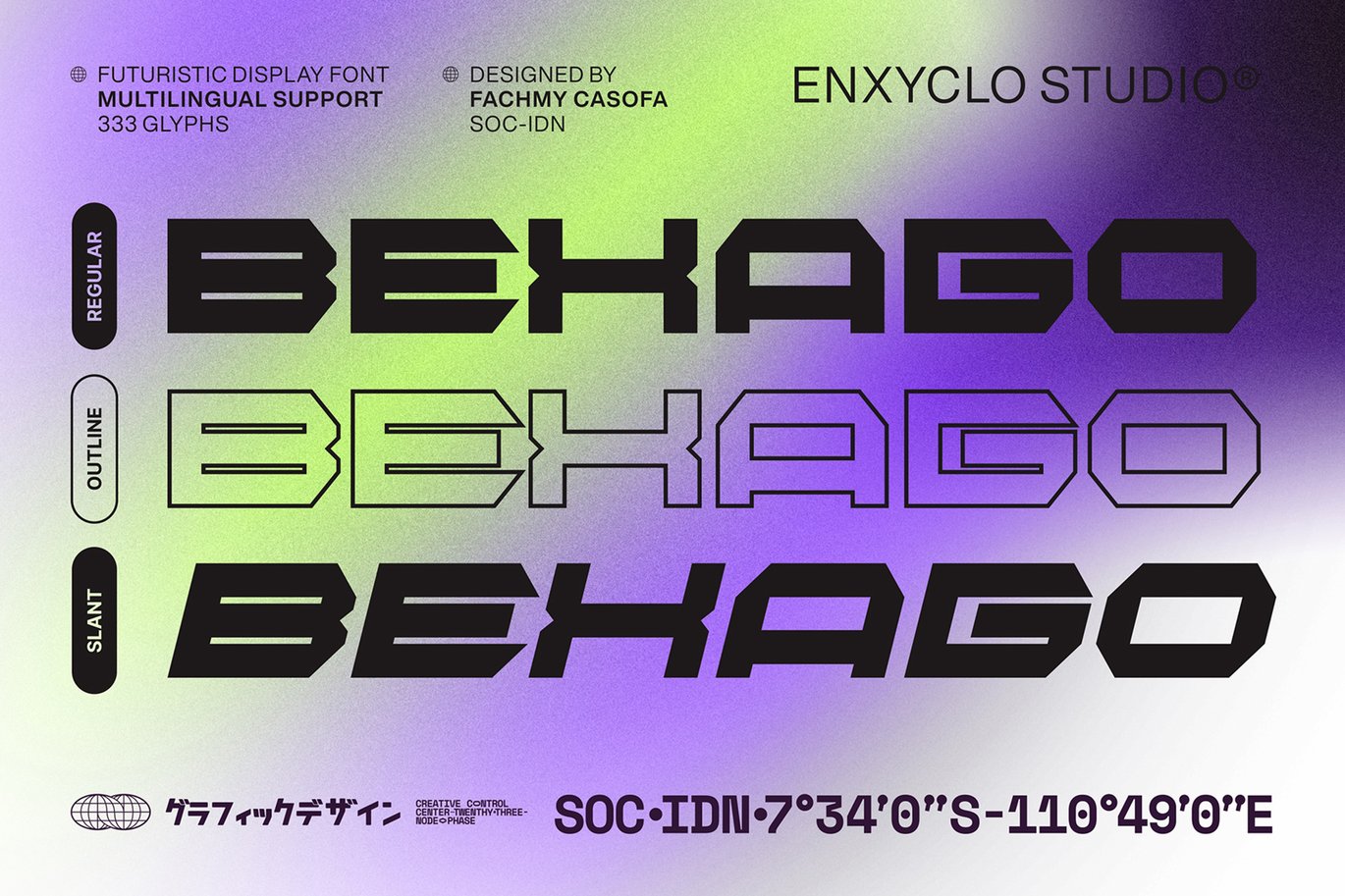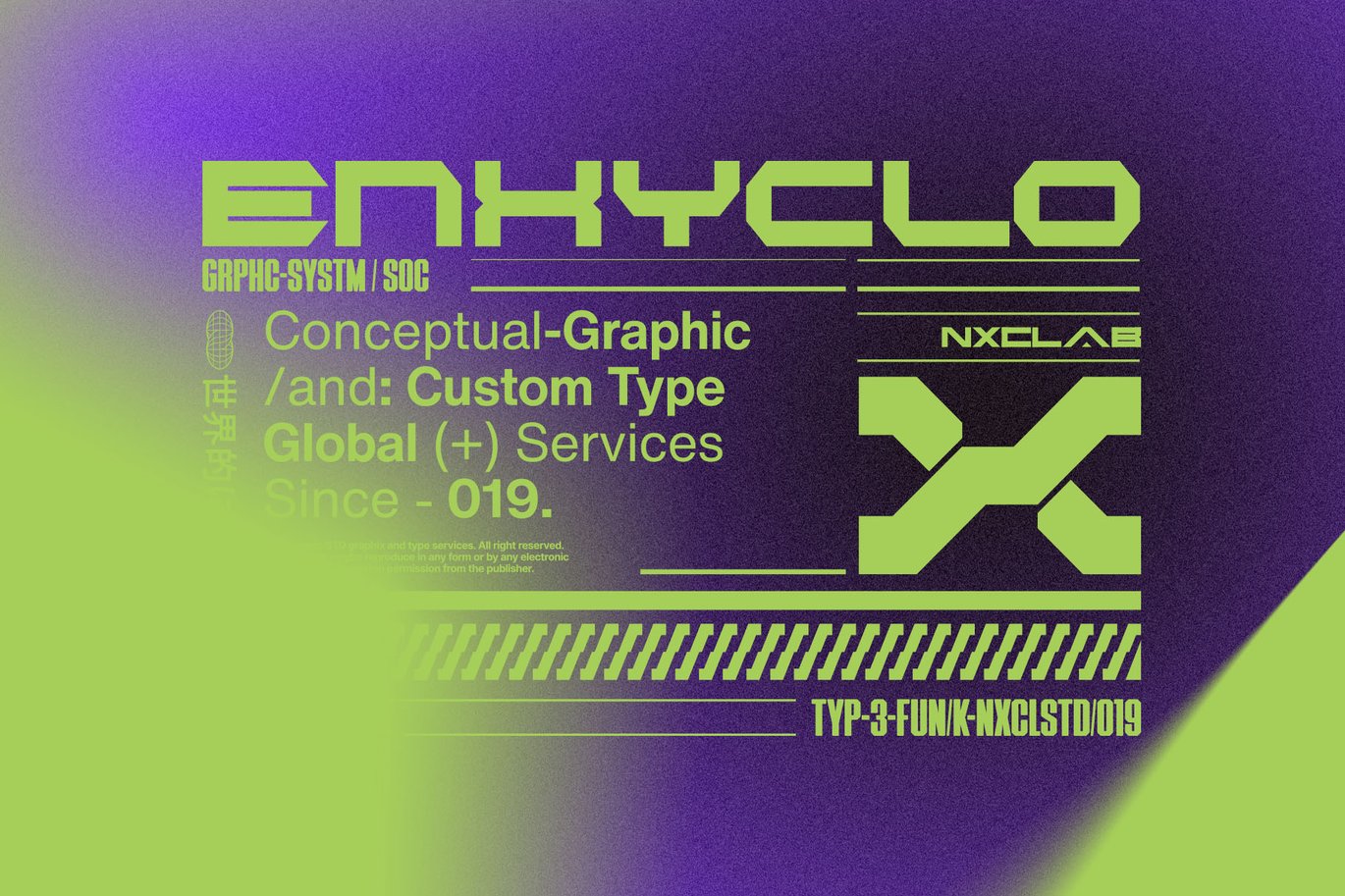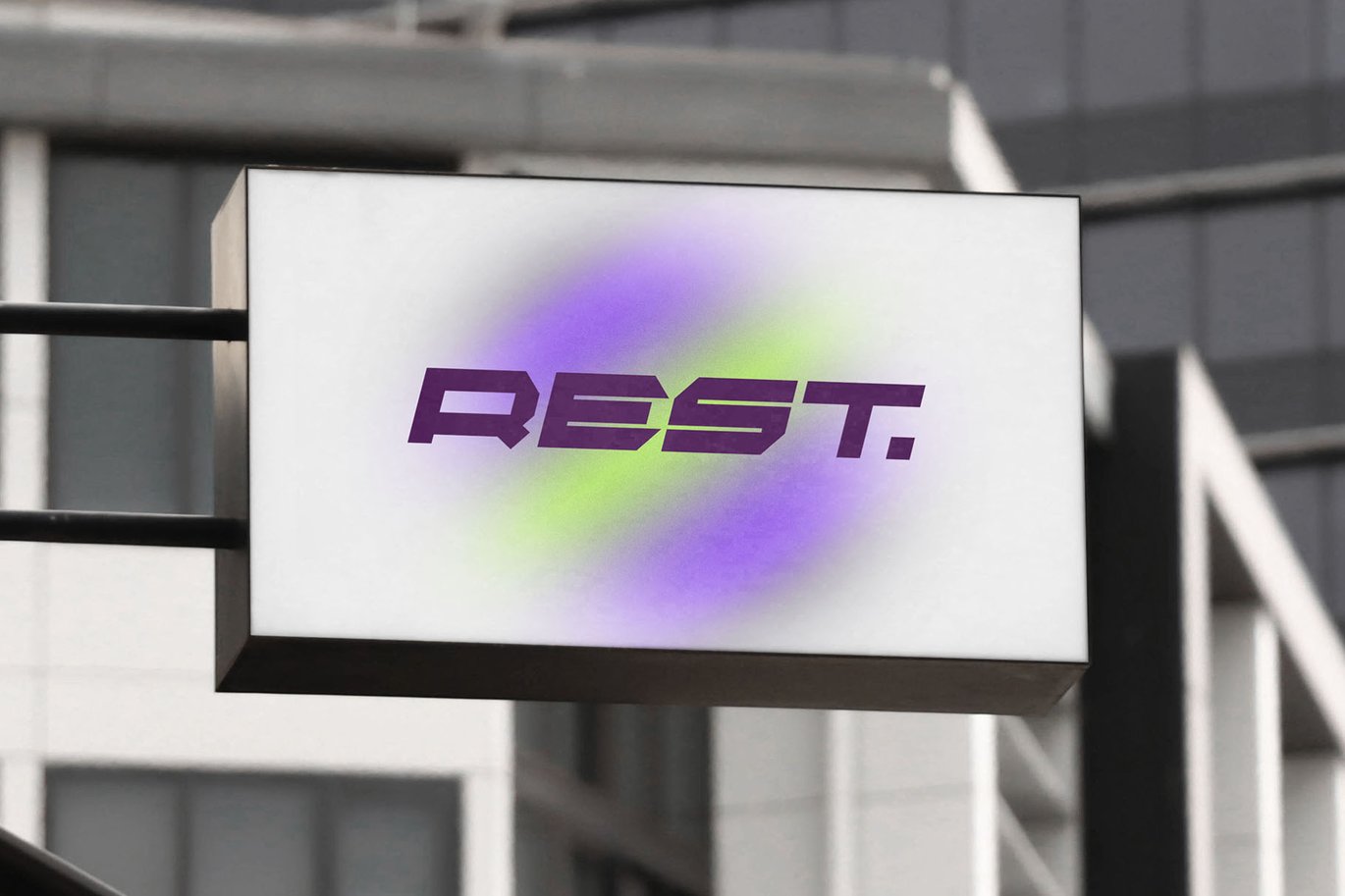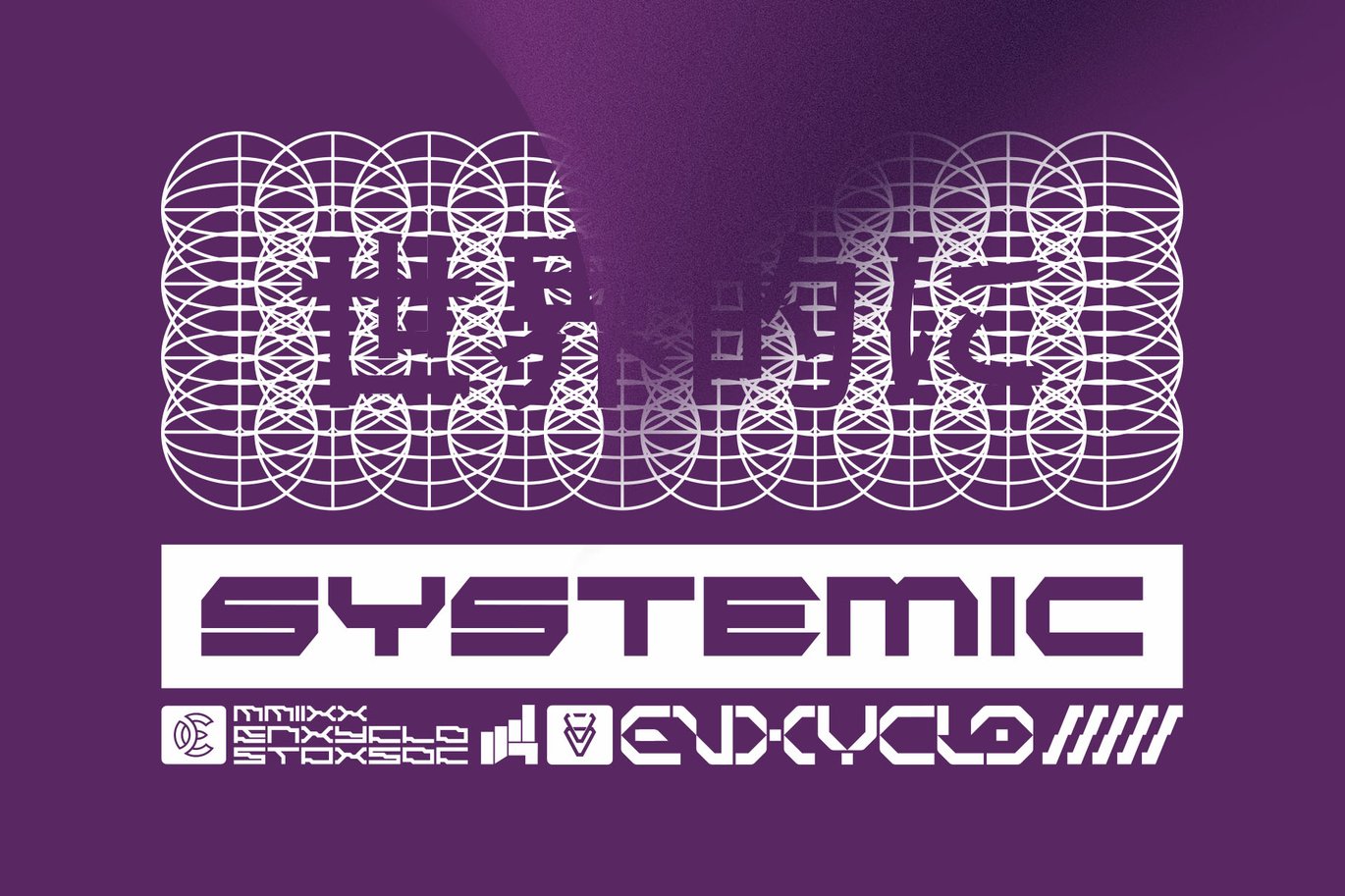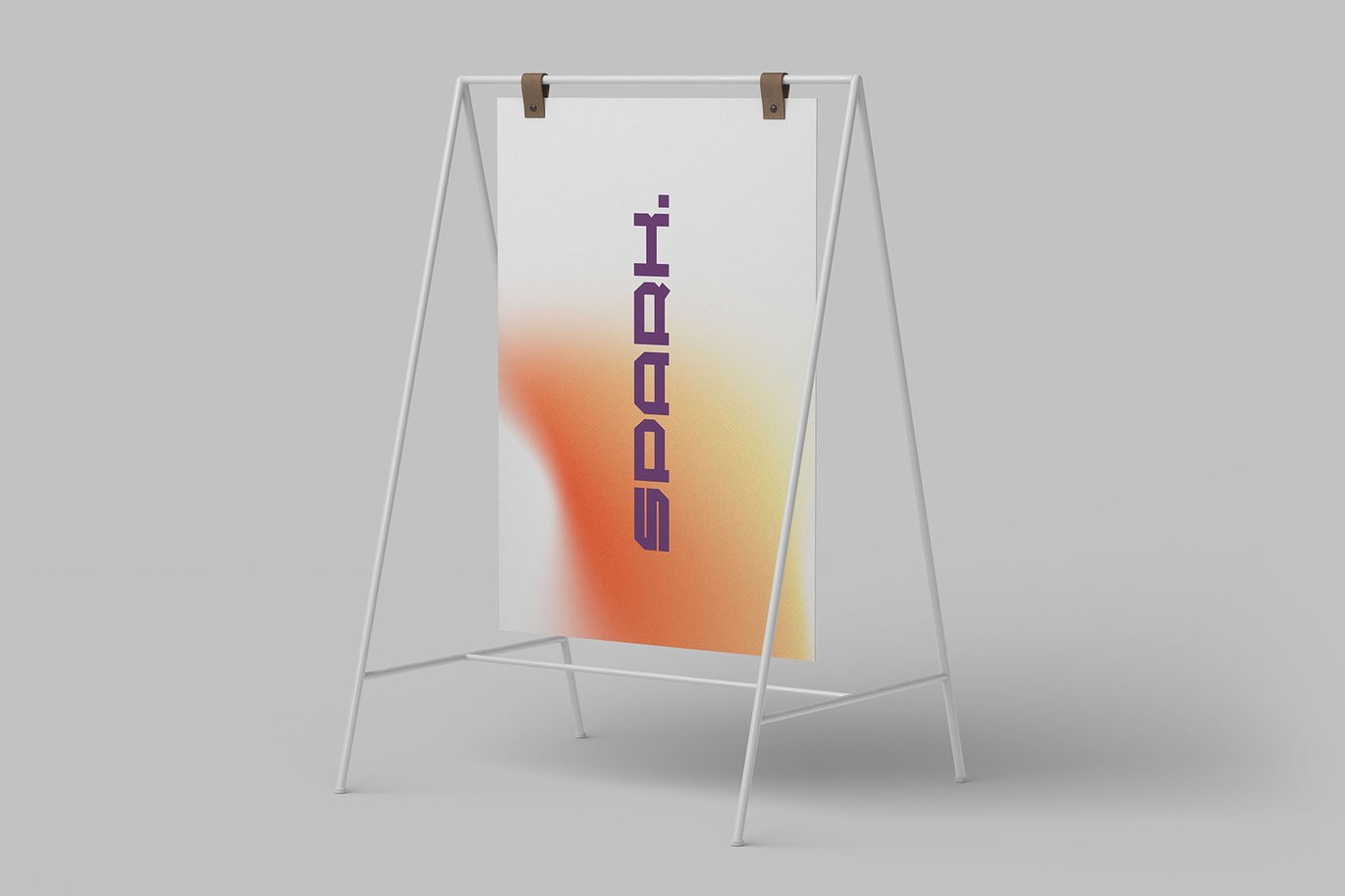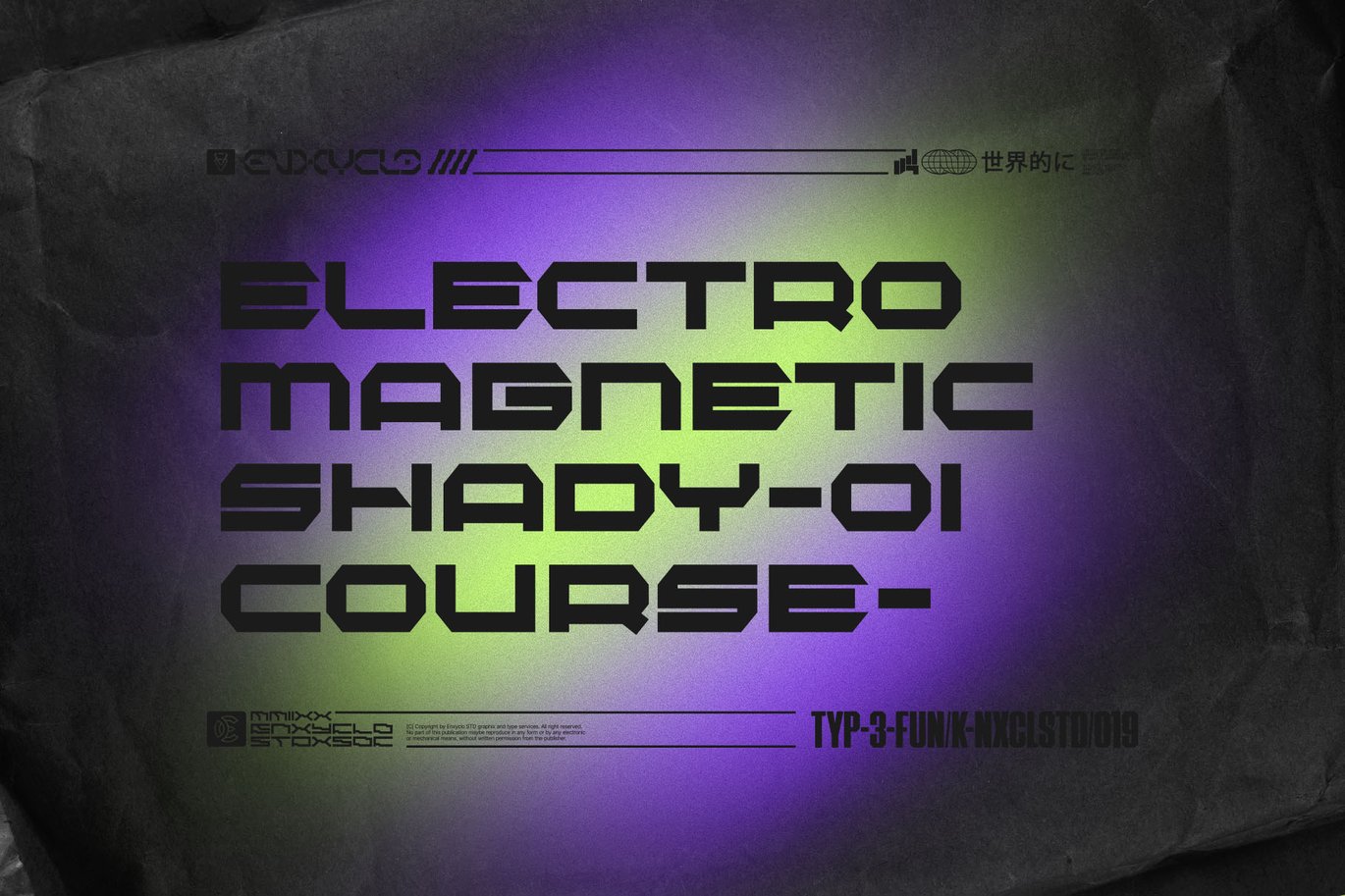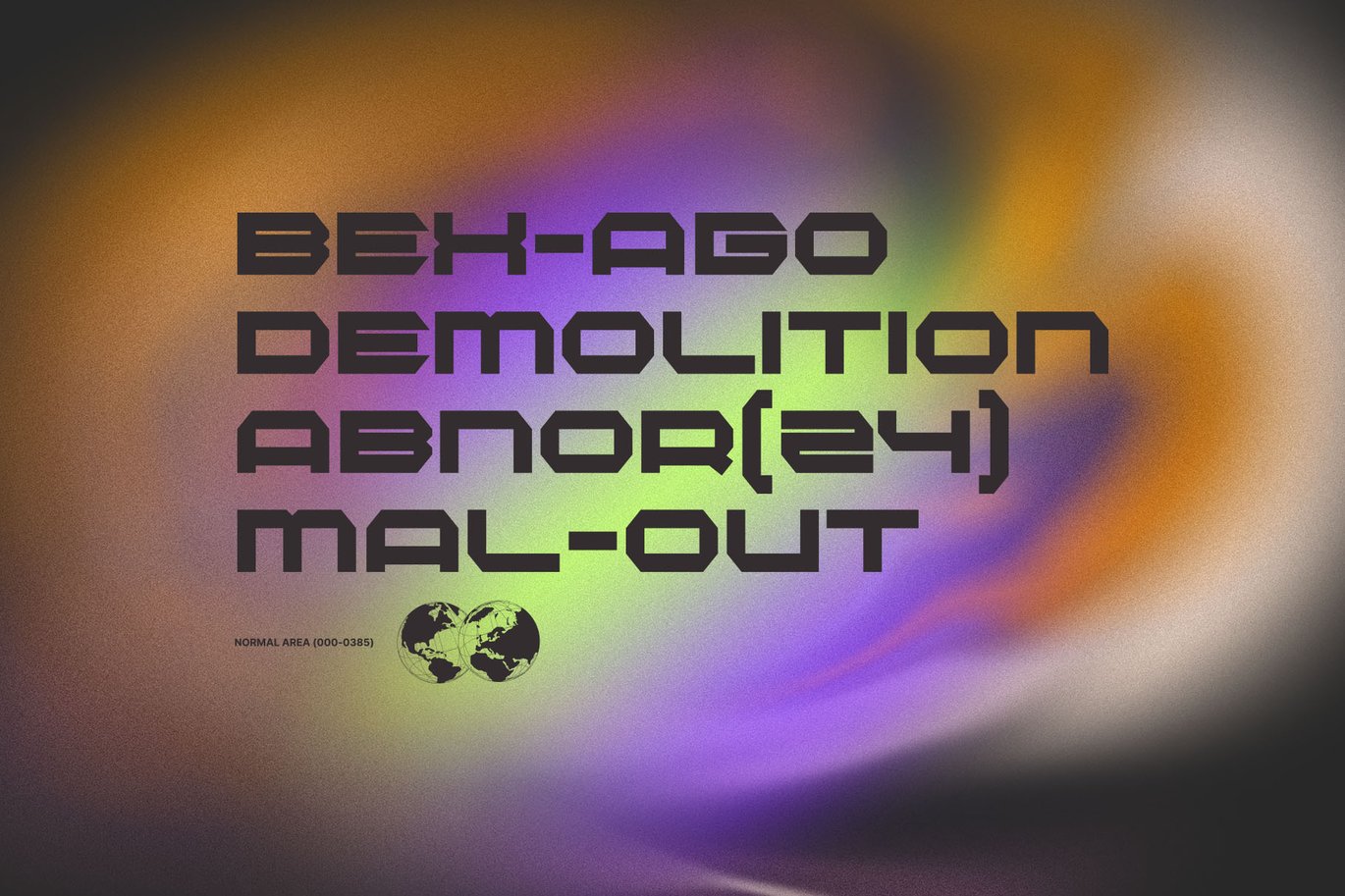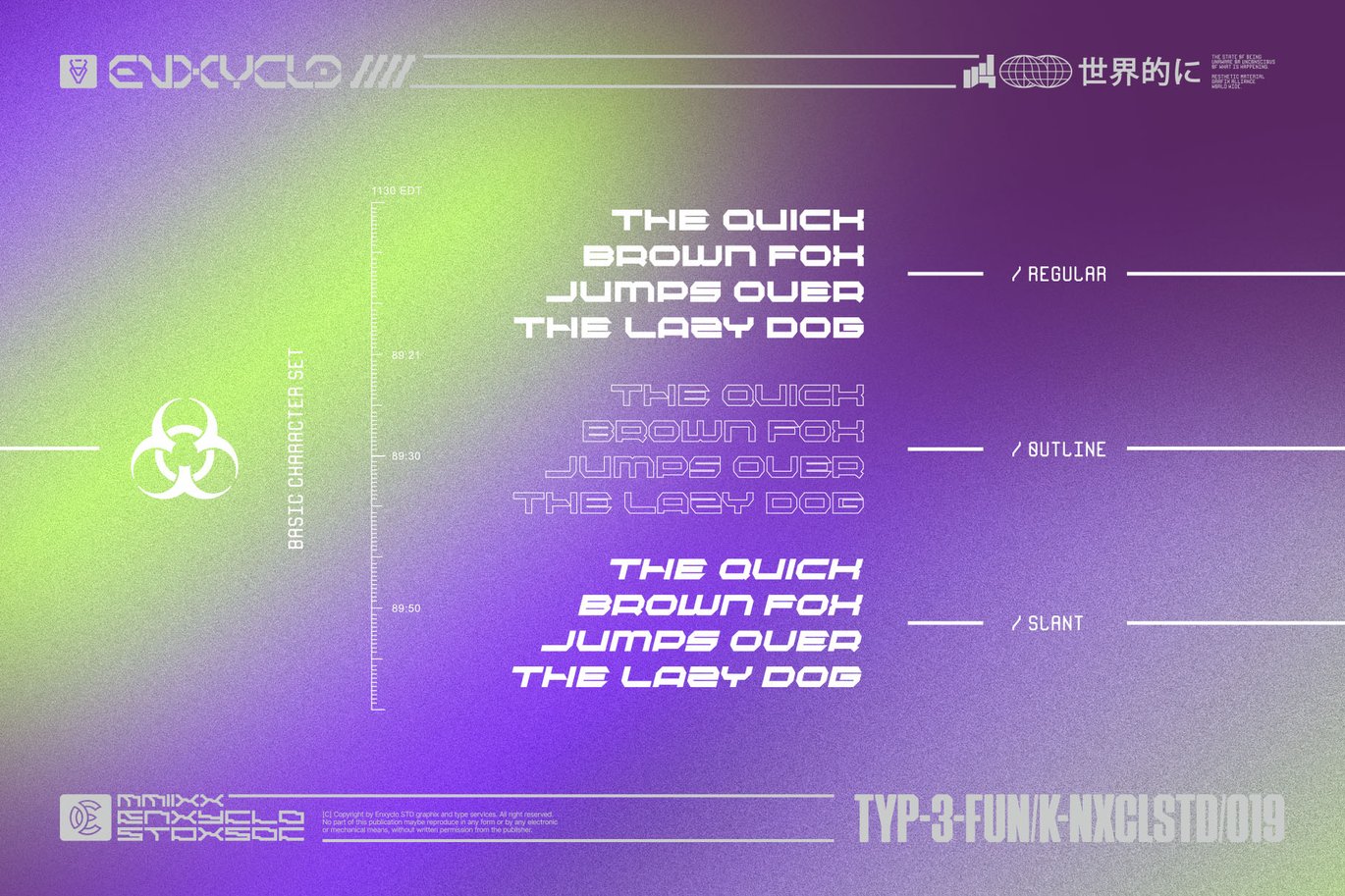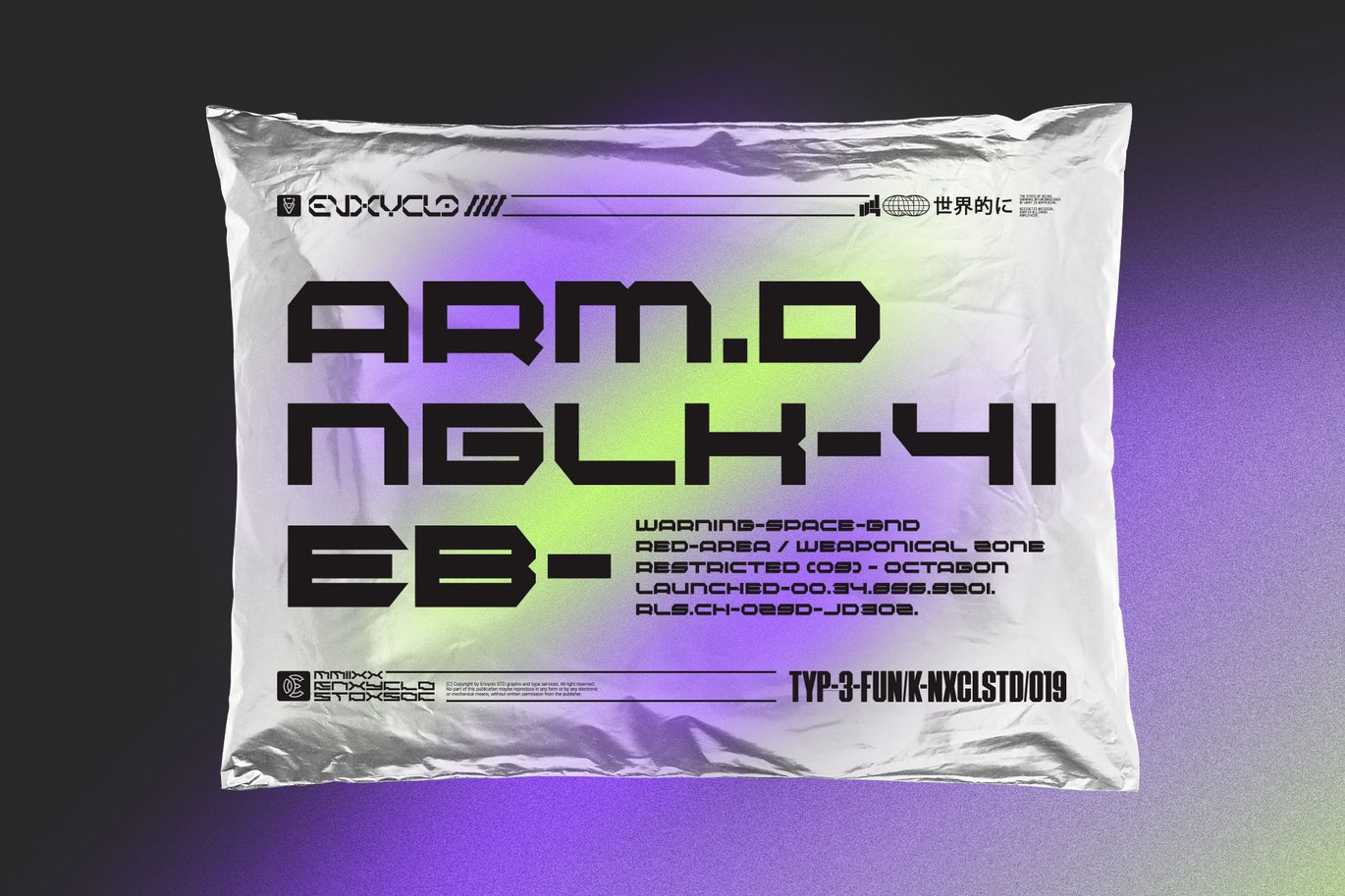
BEXAGO – Futuristic Cyberpunk Tech Display Font
BEXAGO is futuristic cyberpunk y2k tech sci-fi display font. The design of typeface will make your project more powerful and inspiring. With this beautiful futuristic display font, absolutely you can make your project stand out from the rest. See the previews above to get some inspiration on how to use them.
- 3 Styles: Regular, Outline & Slant
- Contains 333 Glyphs for Each Style (Total: 999 Glyphs)
- Uppercase, Numeral, Punctuation & Symbol